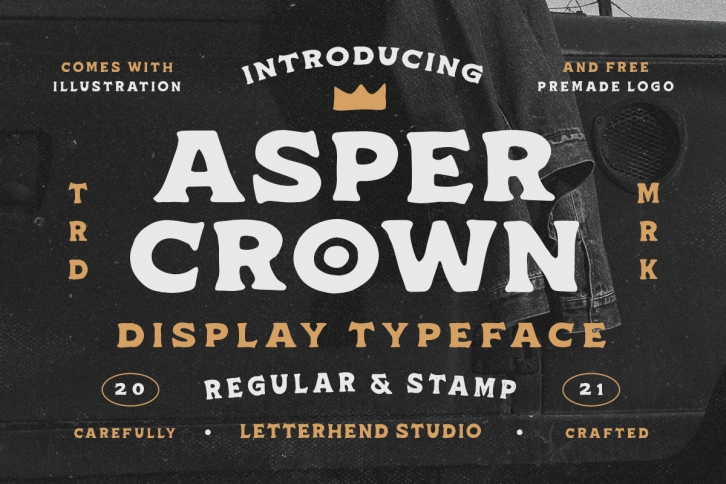
Asper Crown is a cool, rough textured and bold display font. Add it confidently to your favorite creations and let yourself be amazed by the outcome generated.Â